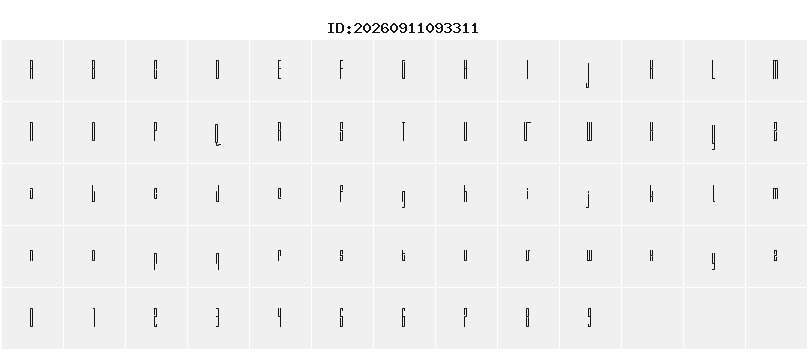
Valdero Preview
• Font Name: Valdero
• Full Font Name: Valdero Regular
• Designer: cablecomputer
• Description: “Valdero” was built with FontStruct
About Valdero.ttf
Valdero.ttf is a modern, elegant sans-serif font designed for ultimate readability and visual harmony. Perfect for branding, headlines, web design, and print materials.